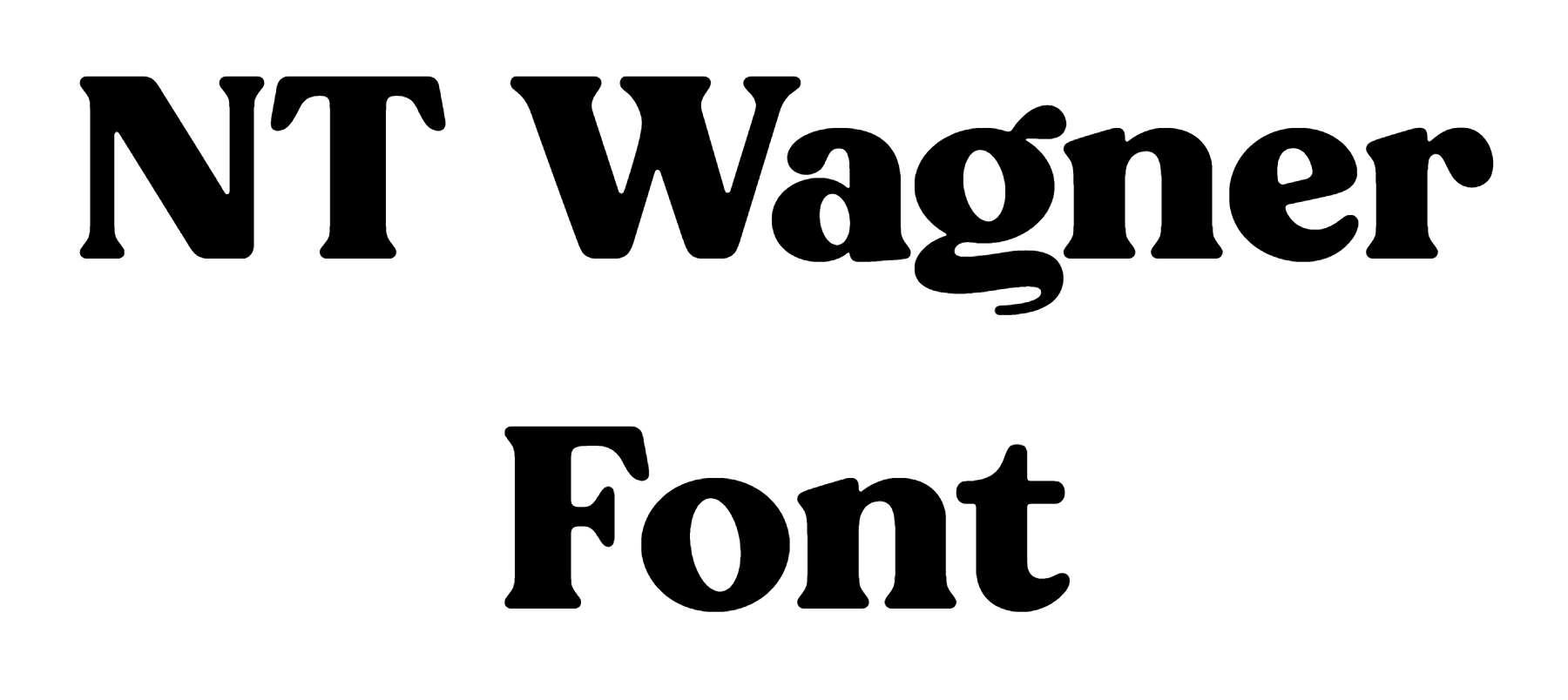
NT Wagner
NT Wagner is a serif font made by Artem Nevsky (2021). It has the traditional, bookish feel of type you see in novels, newspapers and long-established brands. You can download it for free and test it with your own words in the preview above.
What You Can Type With NT Wagner
With complete upper and lowercase letters and all ten digits, NT Wagner is ready for real wording, not just a single headline. Everyday marks like &, !, ? and @ are there too. Thanks to its accented letters, it also works for Spanish, French, German, Portuguese and Italian, not just English.
Where NT Wagner Works Best
Designers usually reach for fonts like NT Wagner when they're making book covers, magazine headlines and classic branding. Serif fonts shine in headlines and printed text. For long paragraphs on phones, check that it still reads well at small sizes.
Does NT Wagner support accented letters?
Yes. NT Wagner includes the accented letters needed for Spanish, French, German, Portuguese and Italian, so it works for more than just English.